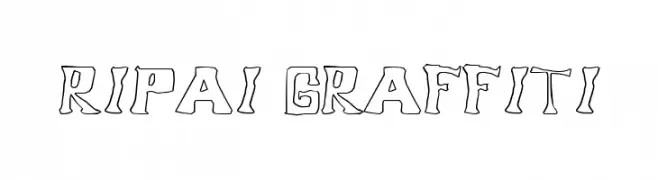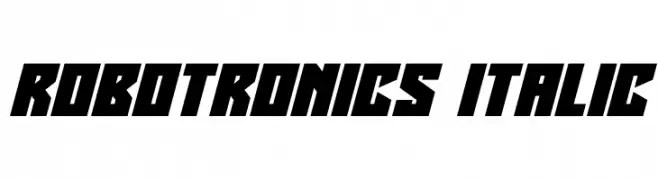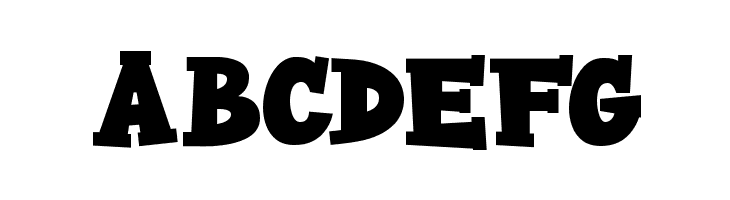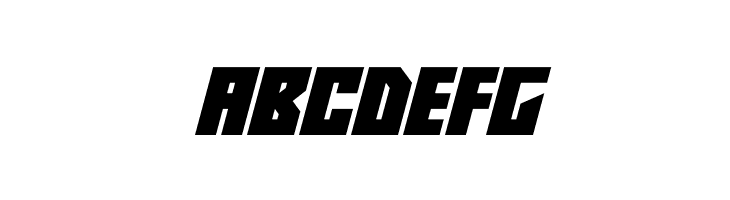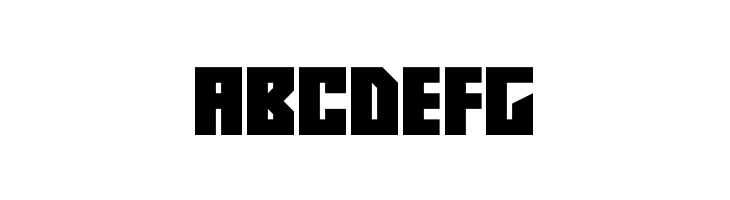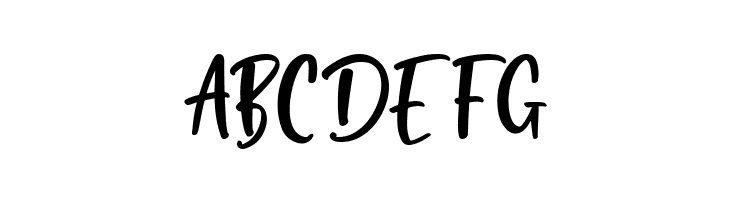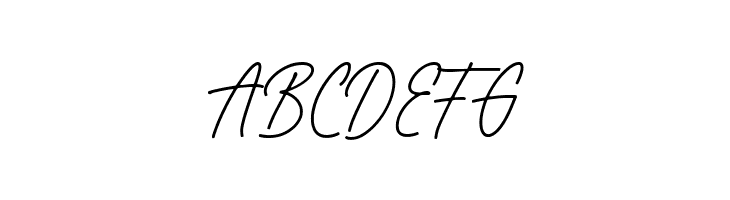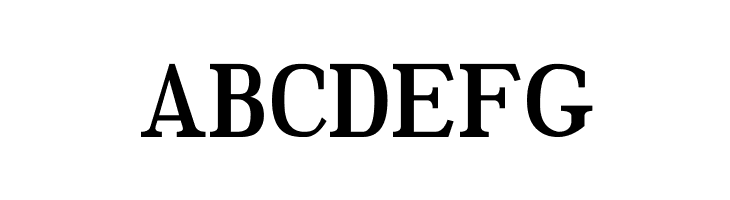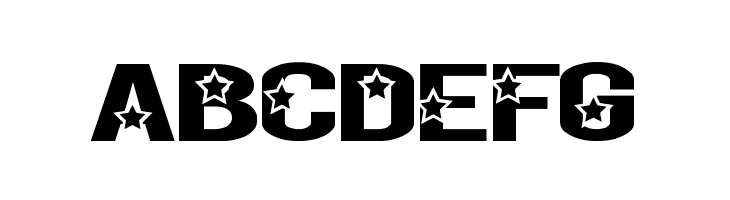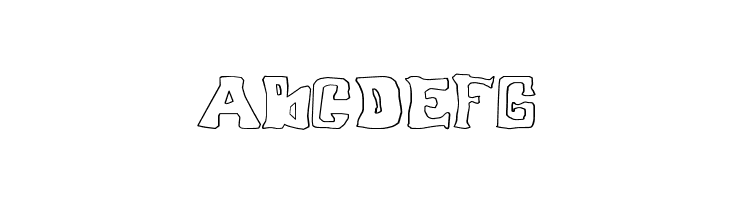
• Ripai Graffiti
• River Avenue
( Fonts by dartcanada.tripod.com - Darren Rigby )
A classic serif font with moderate contrast and pronounced serifs, offering elegance and readability.
• Robotronics
A bold, geometric font with a futuristic and industrial style.
• Robotronics Italic
A bold, angular font with a futuristic and dynamic style.
• Rock Boys
( Fonts by DM Studio )
A bold, playful font with thick strokes and a cartoonish style.
• Rock X Start tfb
( truefonts.blogspot.com )
A bold, decorative font with star motifs integrated into each character.
• Rock'n Fluid
( Qkila - Quentin Aquila - www.creativefabrica.com/designer/qkila/ )
A bold, fluid font with a rock-inspired, dynamic style.
• Rocket Rockers
A bold, playful handwritten font with energetic strokes and a lively appearance.
• RockingLines
A bold, hand-drawn font with a textured, sketched appearance.
• Rocklands
( Fonts by Letterative Studio )
Handwritten cursive script font.